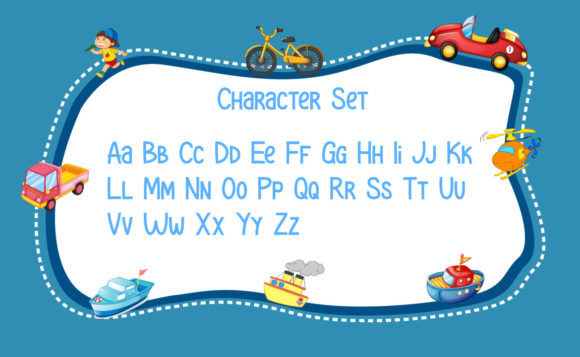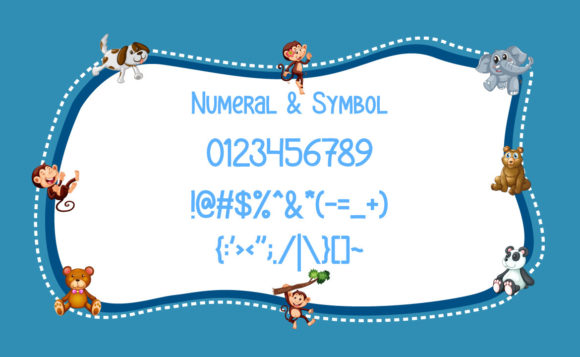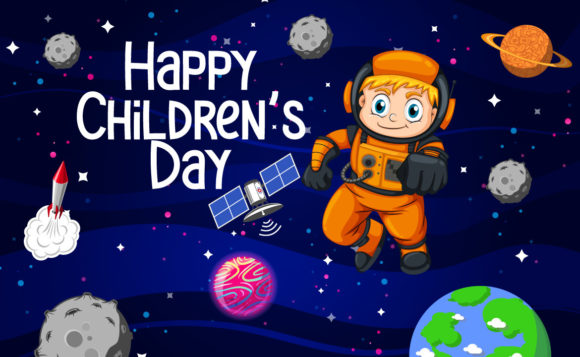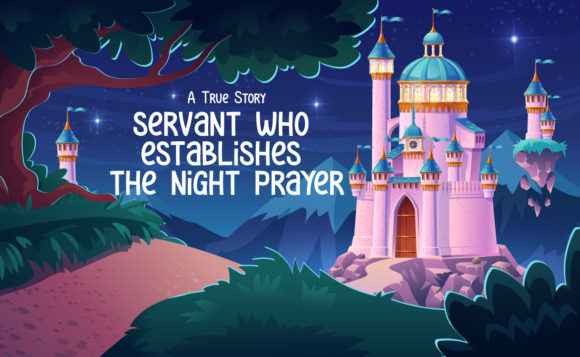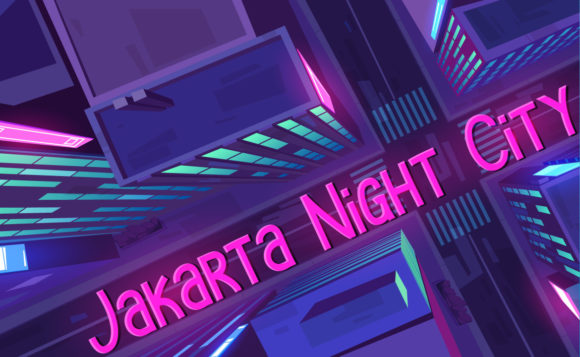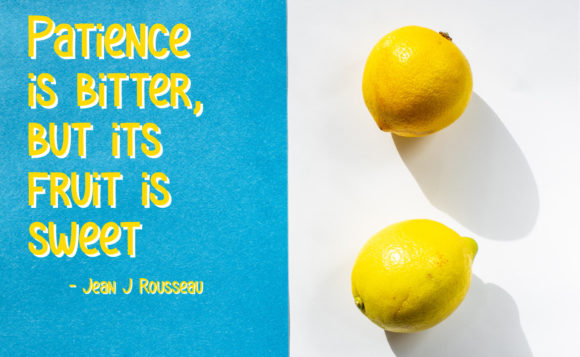
Introduction to Ciylopho Font
Ciylopho is a bold, thick lettered and cool display font.
This font is perfect for children themed designs, especially when combined with bright colors .
Key Features of Ciylopho Font